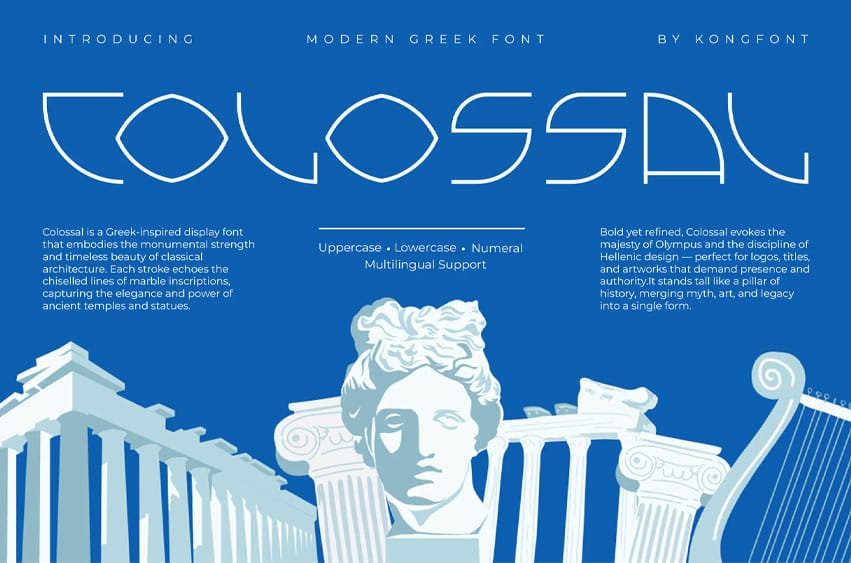
Colossal Font is a modern Greek font inspired by the grandeur and power of ancient Greek architecture and sculpture. With bold letterforms, clean geometry, and a contemporary edge, this typeface embodies both historical depth and modern clarity.
Designed for impactful titles, logos, posters, and editorial layouts, Colossal brings a monumental presence to any creative project. Its unique balance of classical Greek influence and modern design makes it ideal for brands seeking a timeless yet powerful visual identity.